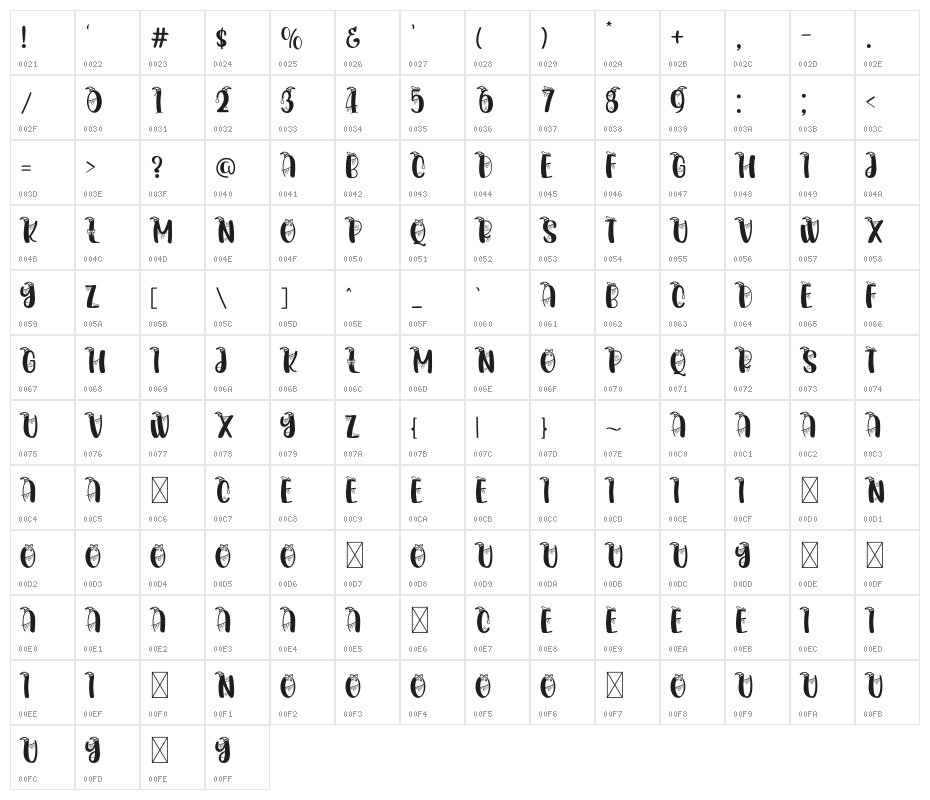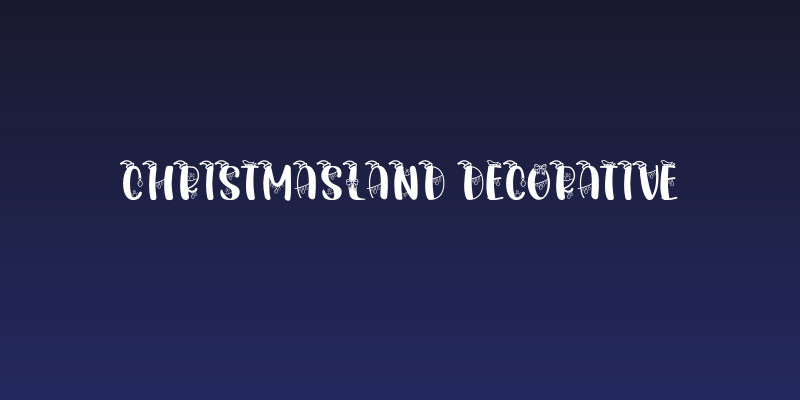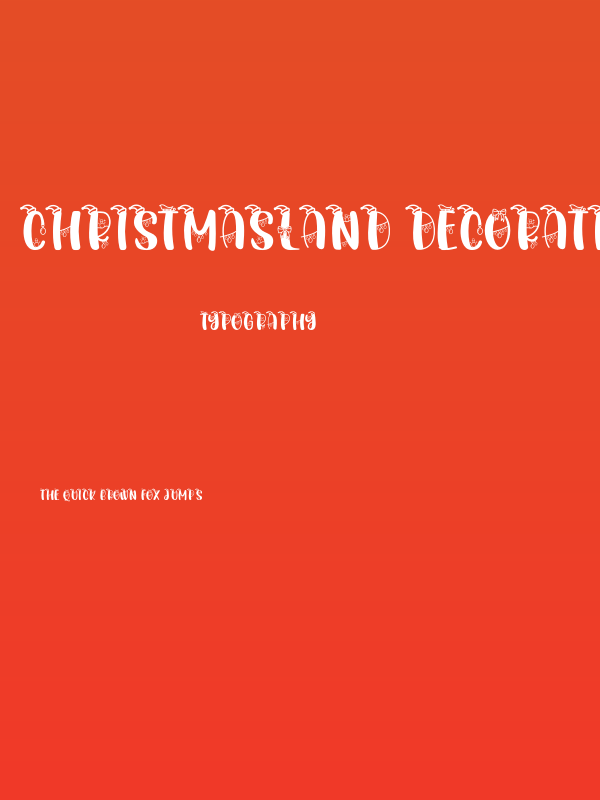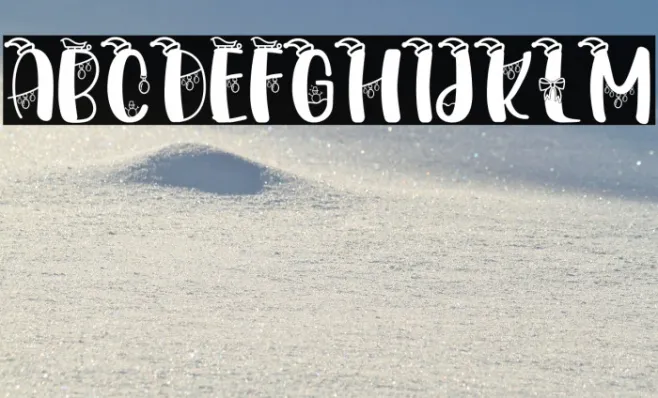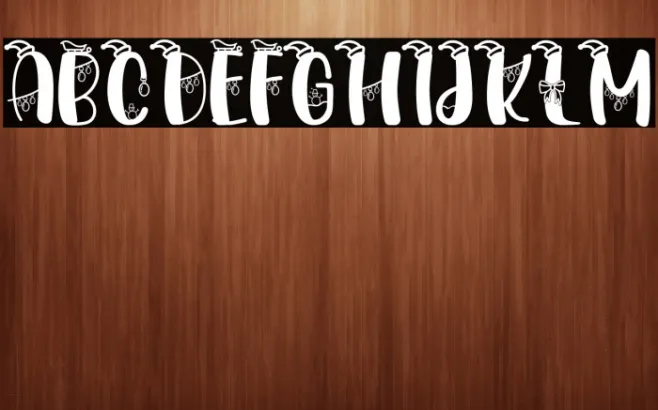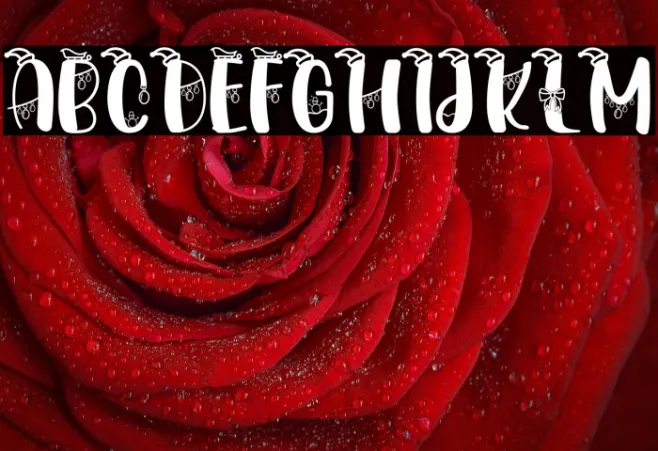
Christmasland Decorative Font
Christmasland Decorative Description
This festive font exudes a playful and whimsical charm, perfect for holiday-themed projects. Each character is adorned with delightful Christmas elements such as Santa hats, bows, and ornaments, adding a touch of seasonal cheer. The letters are bold and rounded, with a decorative flair that captures the joy and spirit of the holidays. The unique embellishments on each character make it stand out, providing a fun and engaging visual experience. This font is ideal for creating eye-catching holiday cards, festive banners, or any project that requires a touch of Christmas magic.
| Use Case | Headlines, Logos, Decorative text |
| Proposed Projects | Holiday cards, festive banners, Christmas party invitations, seasonal advertisements. |